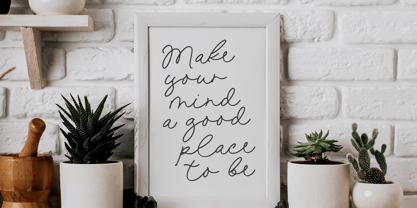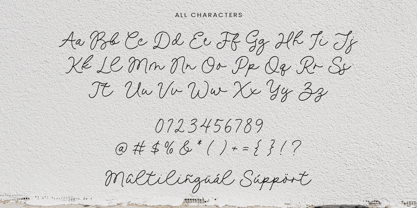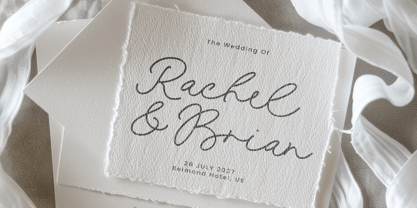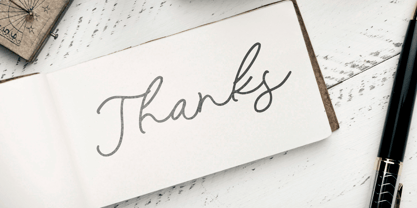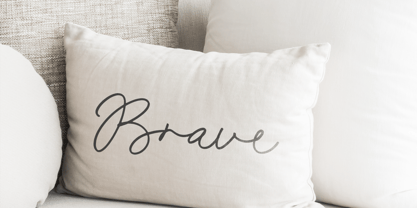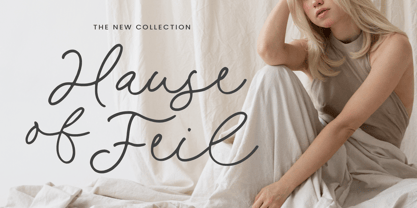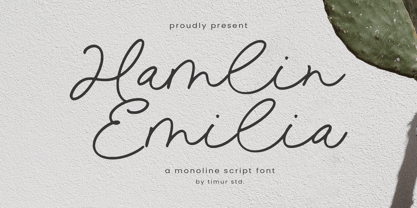
Hamlin Emilia
by Timurtype
The Hamlin Emilia Font Family was designed by Wara Sigit Tri Pamungkas and published by Timurtype. Hamlin Emilia contains 1 styles. More about this family
Introduced by Timurtype Studio!
Hamlin Emilia is a Monoline Script Font
This font is a stylish monoline script font that combines elegance with modern simplicity. Featuring smooth, flowing lines and consistent stroke weight, it’s perfect for branding, invitations, logos, and social media graphics. Hamlin Emilia brings a handwritten charm to any design while maintaining clean readability.
Hamlin Emilia Font also supports multilingualism
Designers: Wara Sigit Tri Pamungkas
Foundry: Timurtype